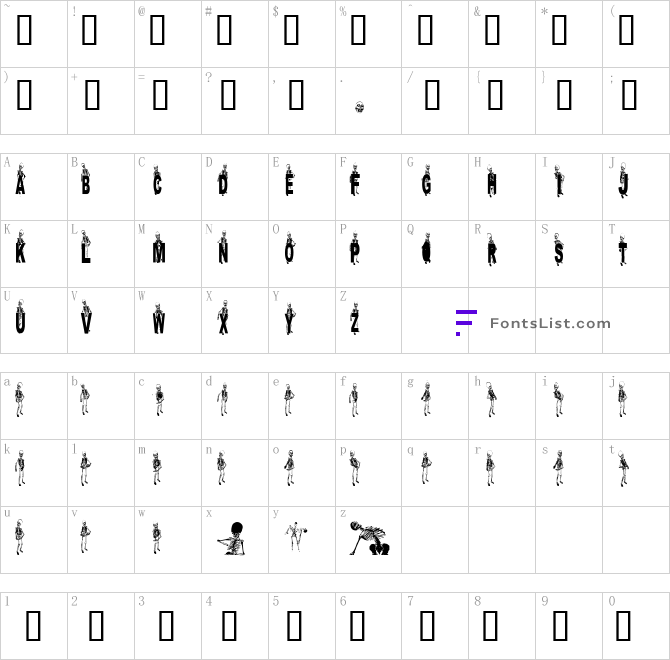
- Font Name:DANCING-DEAD
DANCING-DEAD.ttf is a very beautiful artistic font, DANCING-DEAD.ttf is widely used in the design and printing of various books and pictures,DANCING-DEAD.ttf has a strong visual impact,DANCING-DEAD.ttf is a commonly used font in newspapers, magazines and books, and is used in posters, e-commerce Poster design, store design, logo design, font design and other fields.DANCING-DEAD.